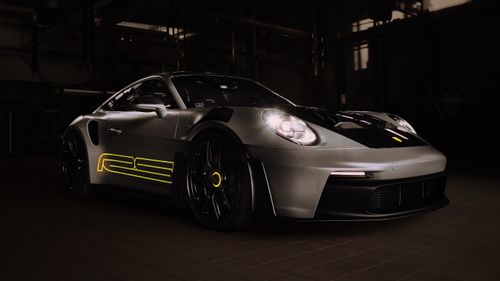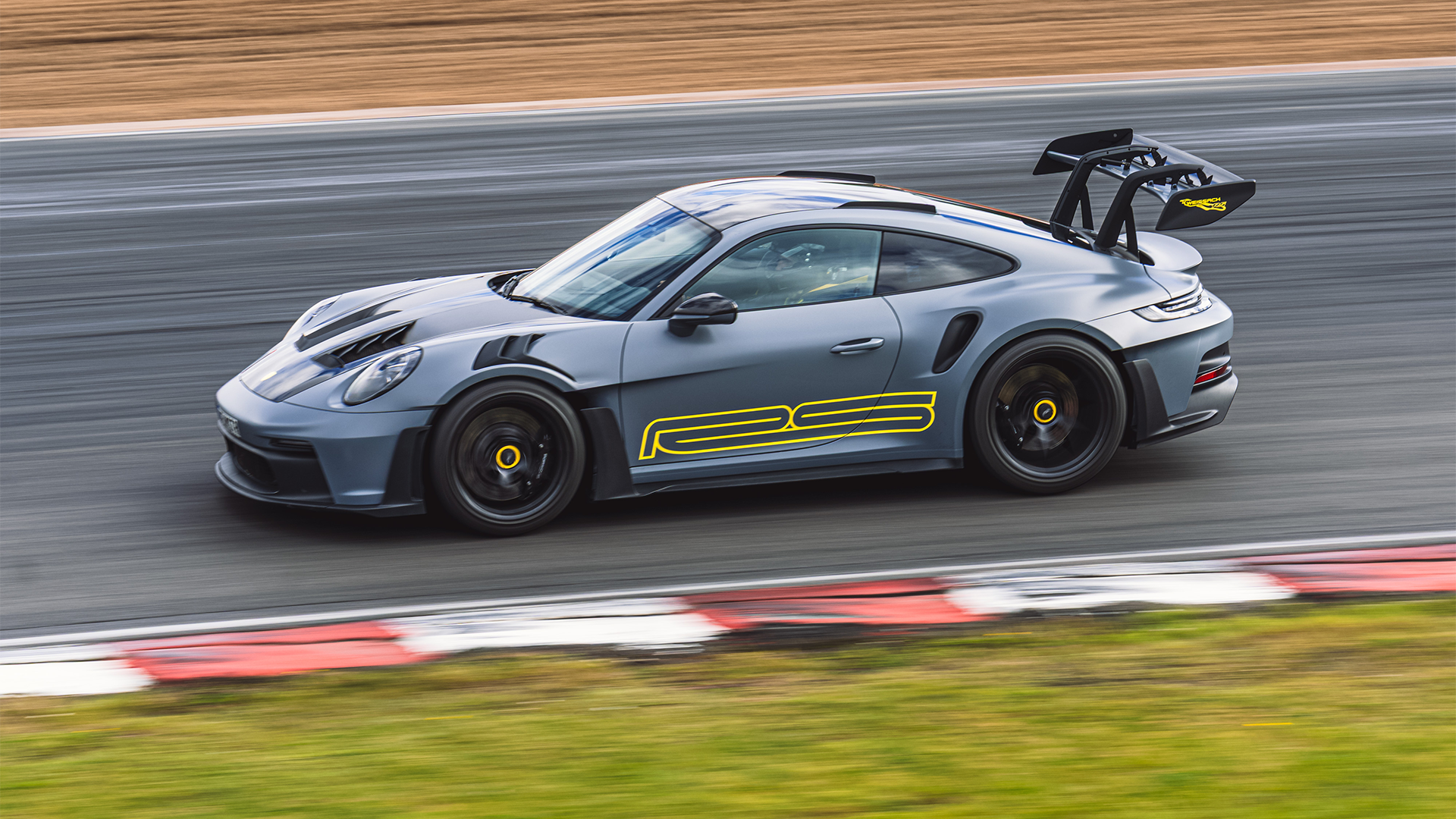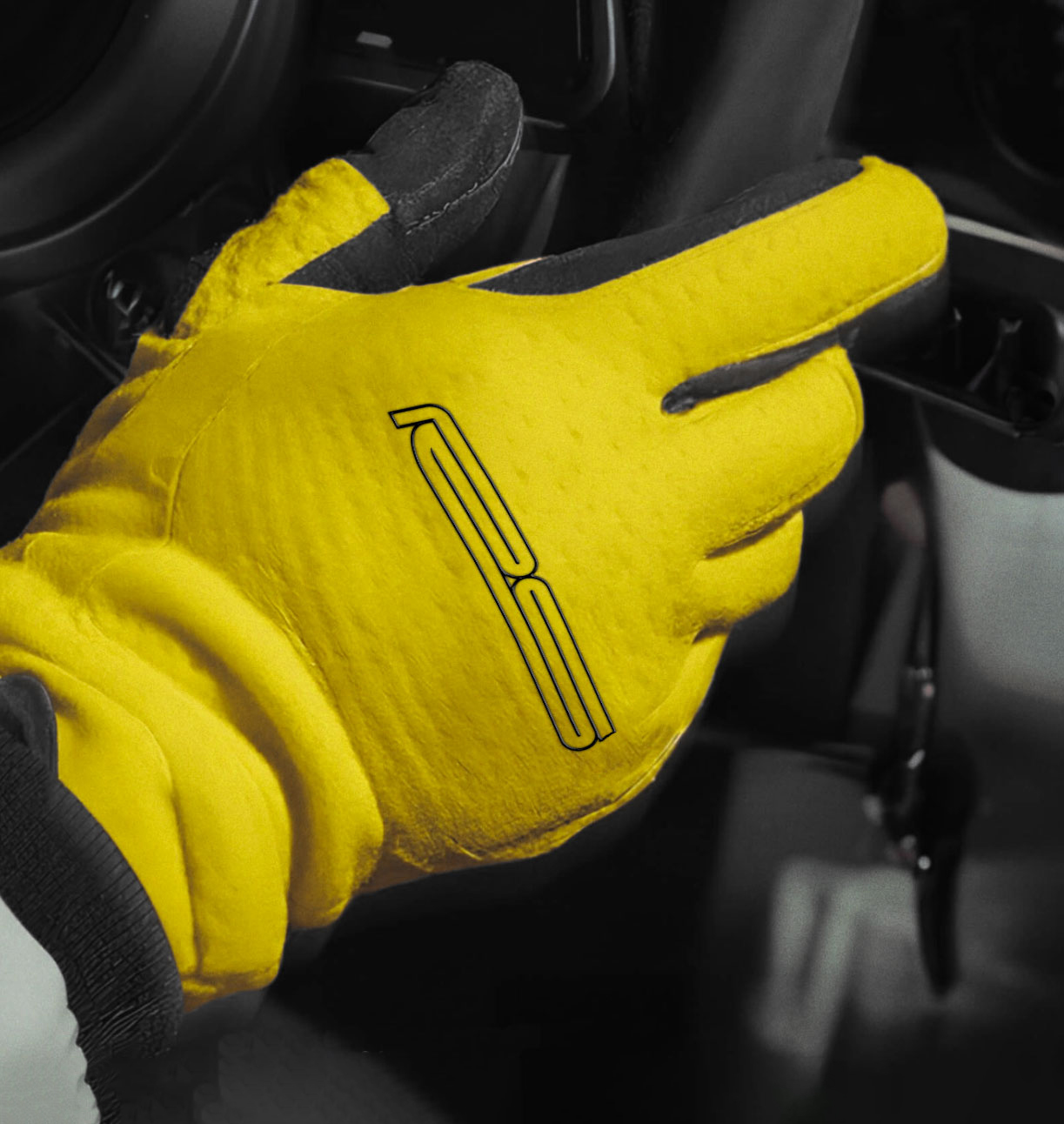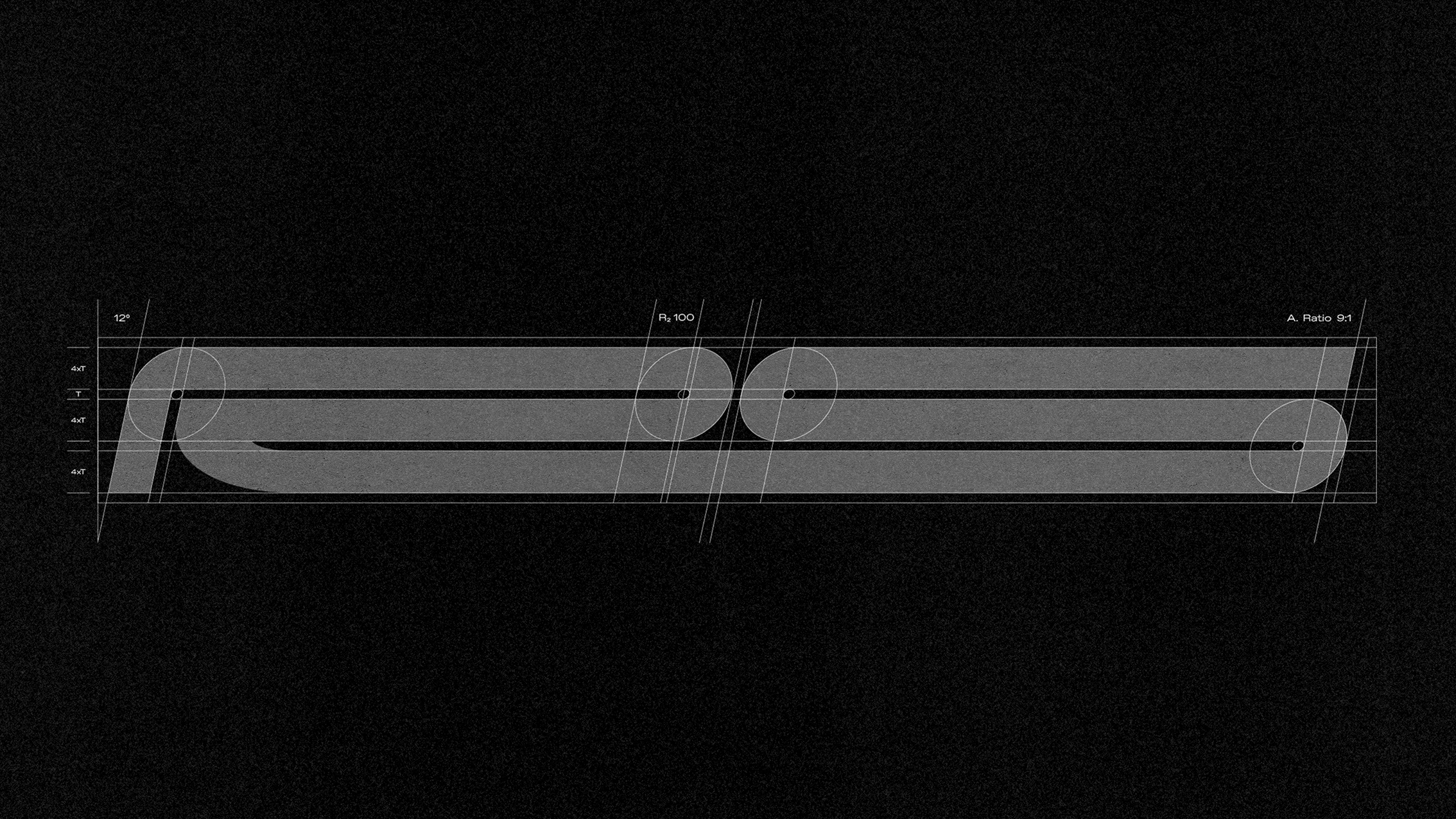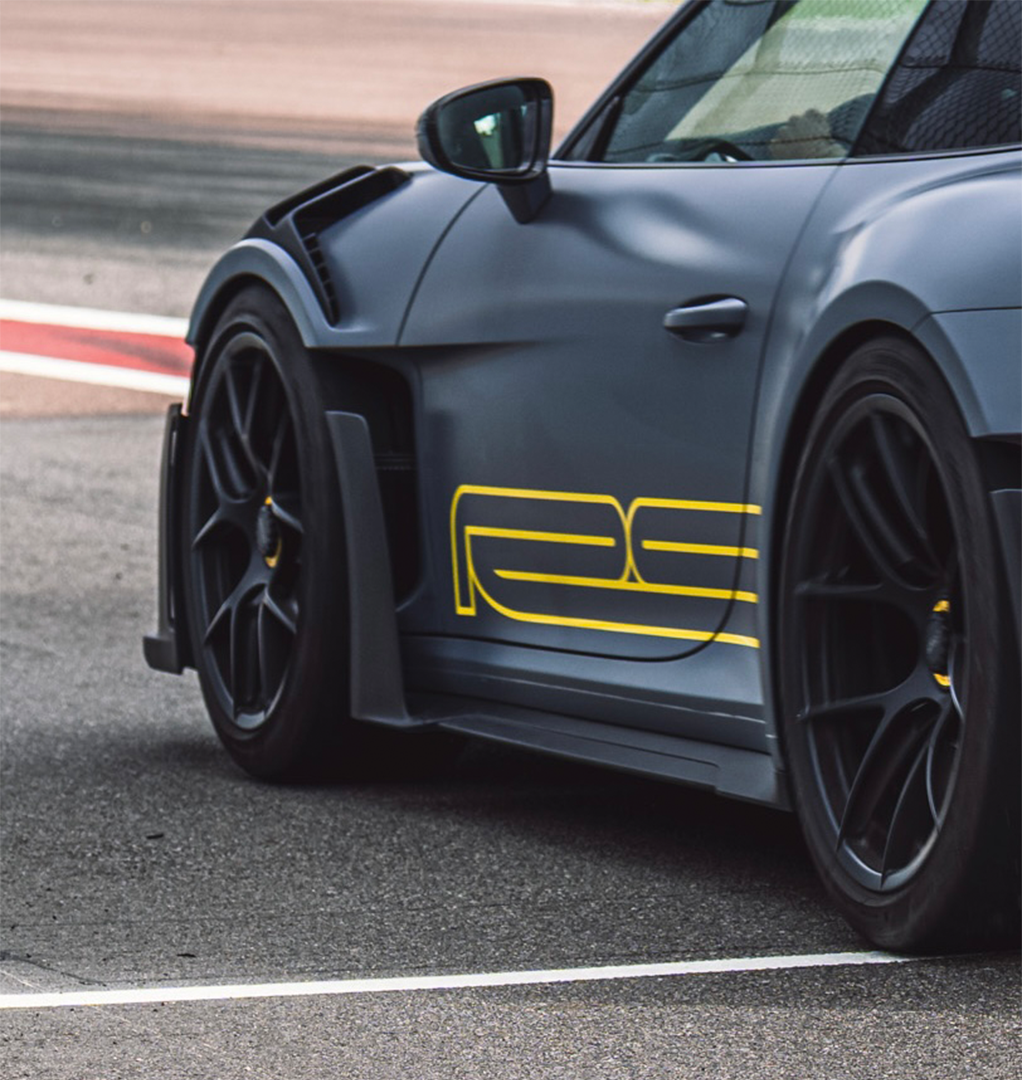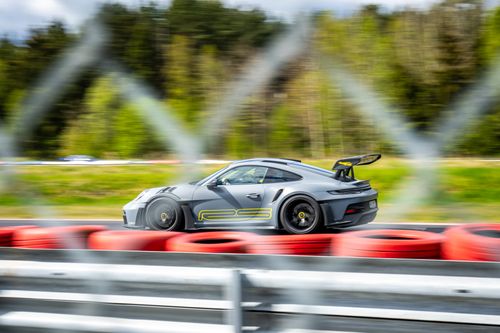
RS: engineered precision
The Porsche 911 GT3 RS is designed to do one thing: turn engineering into speed. Its surfaces, cuts and wing profiles work together with uncompromising clarity. Our RS typeface captures that same energy. A modern, track-born expression where motion, precision and control form the backbone of every letter.
The GT3 RS is a track car that just happens to be road-legal. Built for drivers who value precision above all else, it represents the most distilled form of Porsche’s Rennsport philosophy. RS models are lighter, sharper and more focused than any other 911 — engineered for control, connection and confidence at the limit.
Rennsport, reimagined
On this particular GT3 RS, we sharpened the visual expression. The body was given a silk-matte finish, the hood’s grey surfaces was blacked out for a cleaner, more cohesive look, and the electric-yellow accents were lifted from the interior to the exterior.
We removed the GT3 RS original logo on the sides, replacing it with a new RS mark. To be a RS it has to be a GT3. And we added a yellow Porsche silhouette to the hood without any details, just a simple shield in yellow. The result is a clearer, more contemporary interpretation of Rennsport.
A new typeface
takes shape
The new RS mark is only the beginning. In the next step, its geometry and track-born precision will grow into a complete typographic system — a design that carries the spirit of the GT3 RS into every letter.